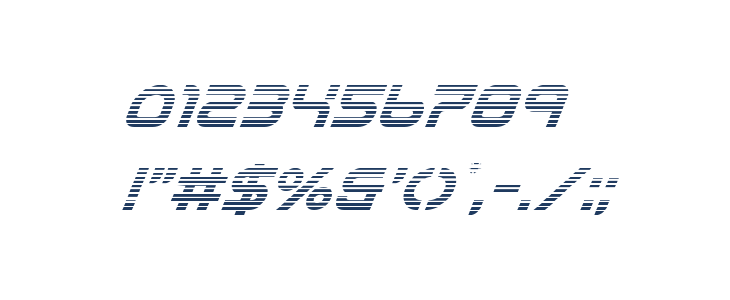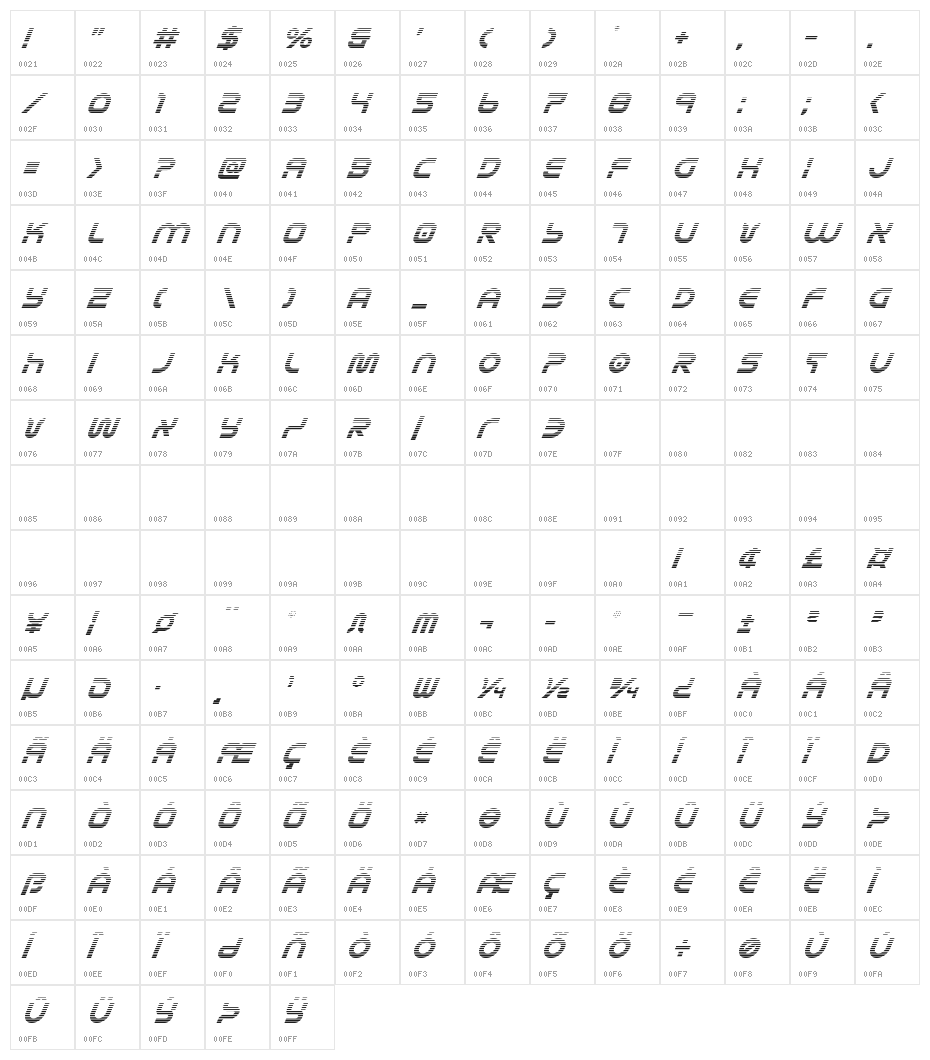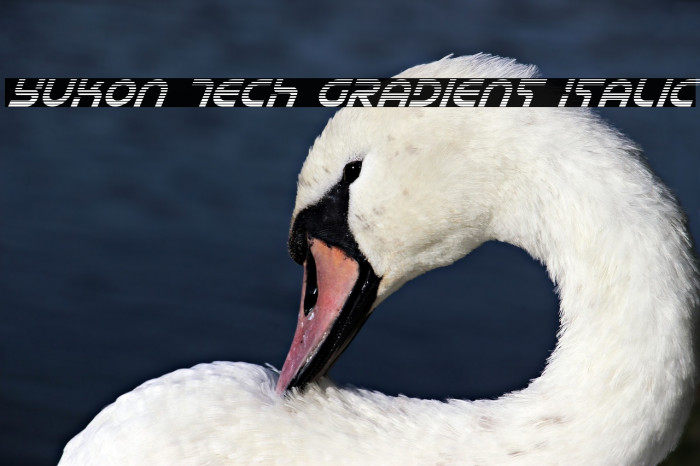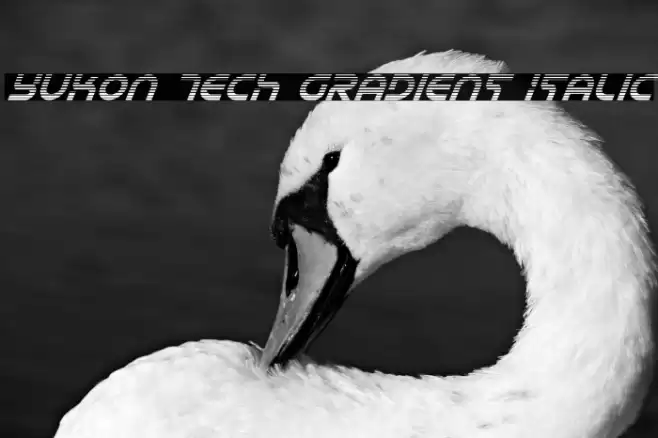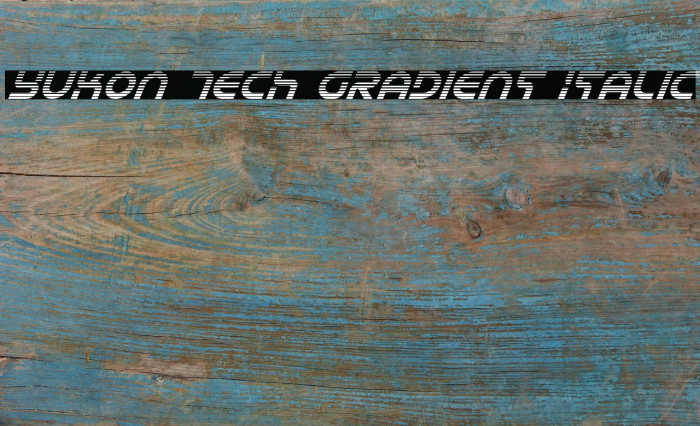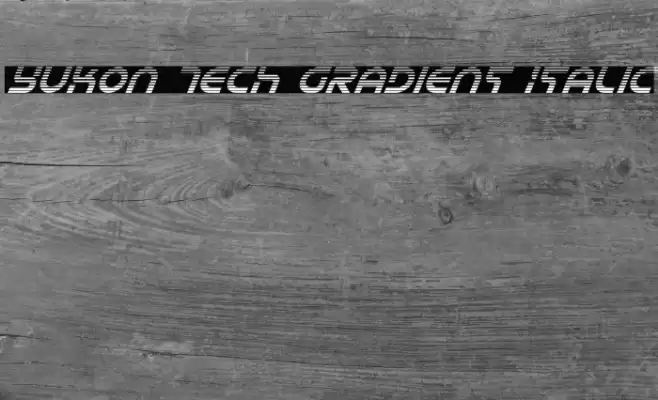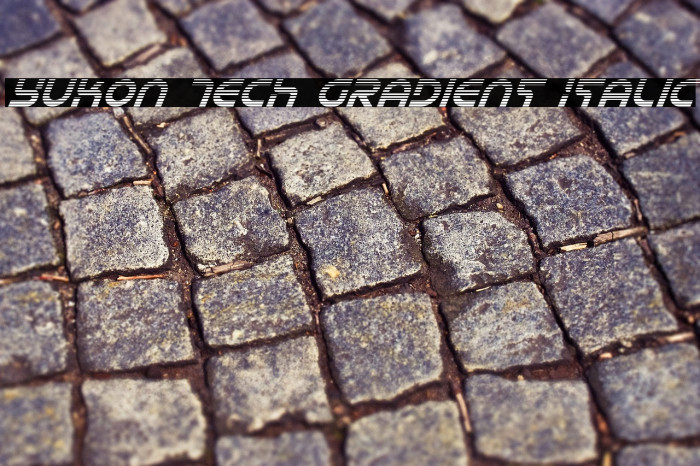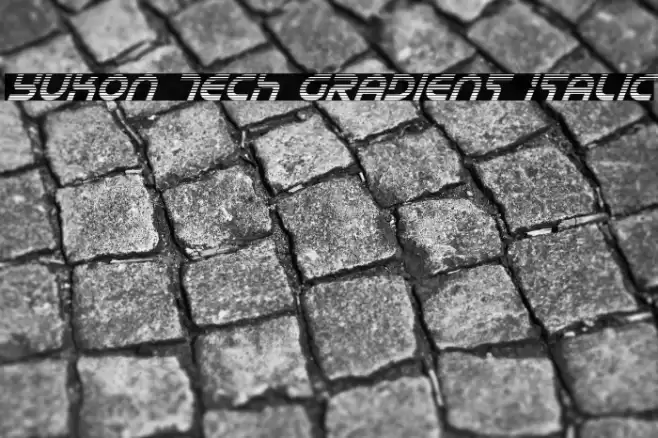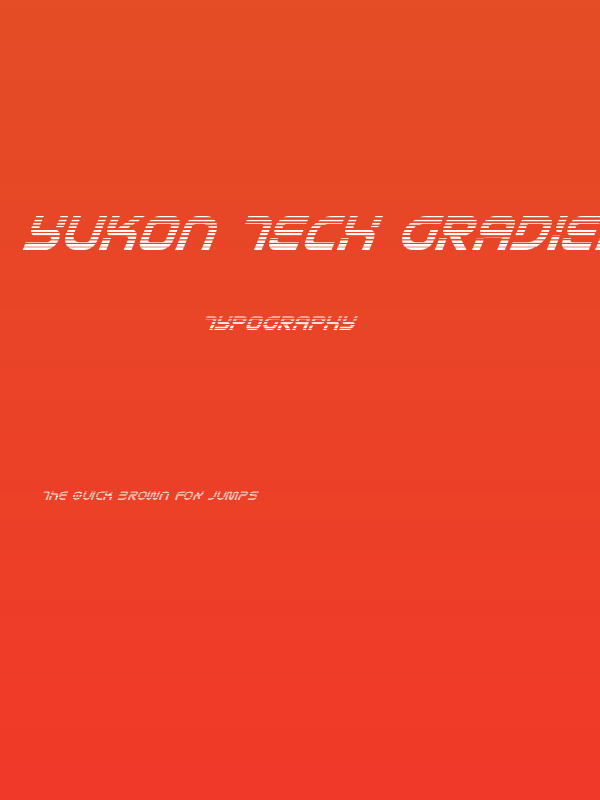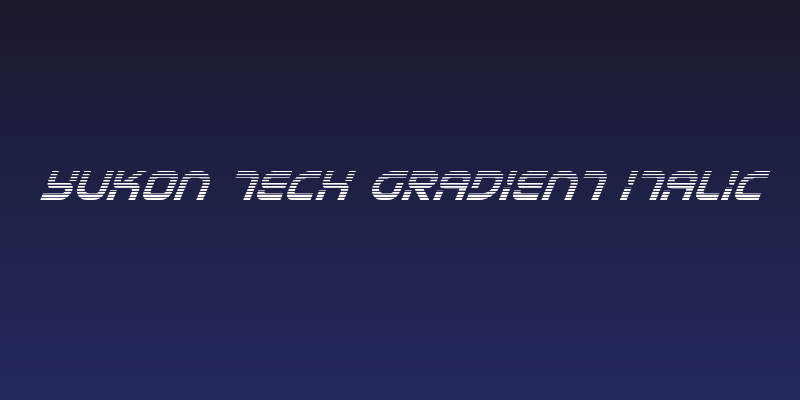
Yukon Tech Gradient Italic Font
Yukon Tech Gradient Italic Description
This font features a futuristic and dynamic design with a gradient effect that gives it a sense of motion and depth. The italicized style enhances its sleek and modern appearance, making it stand out with a unique, tech-inspired aesthetic. The characters are composed of horizontal lines that create a striped pattern, adding to its distinctive look. This font is ideal for projects that require a bold and innovative touch, such as technology branding, sci-fi themes, or modern advertising. Its structured yet creative form makes it versatile for various design applications.
Proposed ProjectsIdeal for technology branding, sci-fi themes, modern advertising, and innovative design projects.